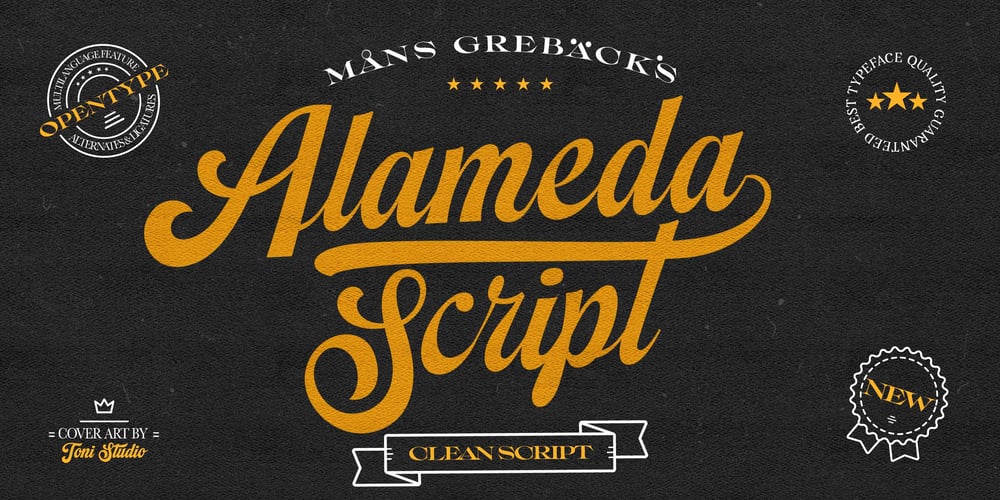
Alameda Script
Alameda Script font
Alameda Script Font Family was designed by Måns Grebäck and published by Mans Greback. Alameda Script contains 3 styles and family package options. Alameda Script is a sporty script typeface. A sharp calligraphy lettering that brings your mind to a distinguished championship, Alameda Script is a professional quality formal font family.Drawn and created by Mans Greback in 2022, it is perfect for a classic sport headline or a fresh and modern logotype design. Use underscore _ to make a swash. Example: Breakers_Use multiple underscores to make swashes of different lengths.Example: Baseball______(Download required.)Alameda Script is provided in three styles: Regular, Bold and Black, in order to compliment each other and maximise your options and design experience. The font is built with advanced OpenType functionality and has a guaranteed top-notch quality, containing stylistic and contextual alternates, ligatures and more features; all to give you full control and customizability. It has extensive lingual support, covering all Latin-based languages, from Northern Europe to South Africa, from America to South-East Asia. It contains all characters and symbols you’ll ever need, including all punctuation and numbers.